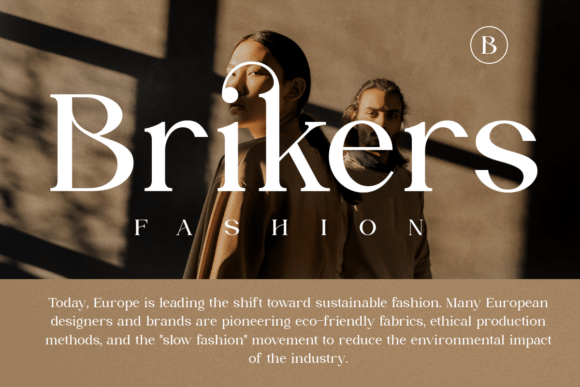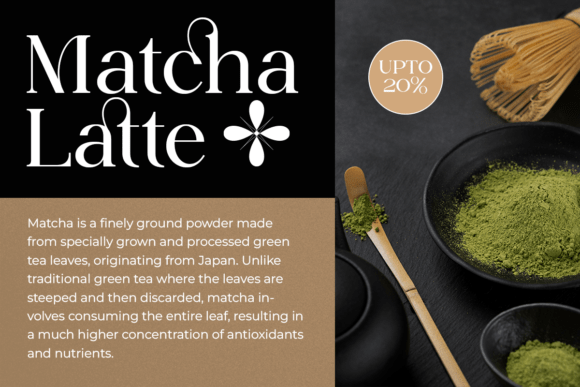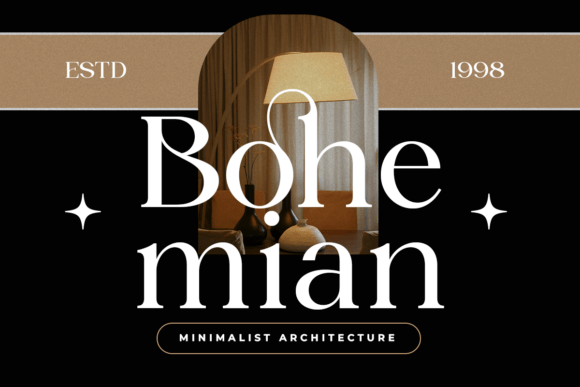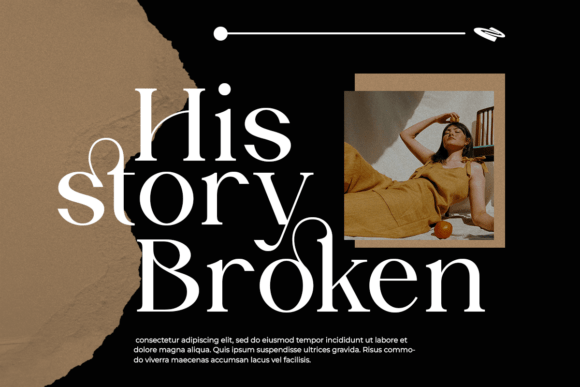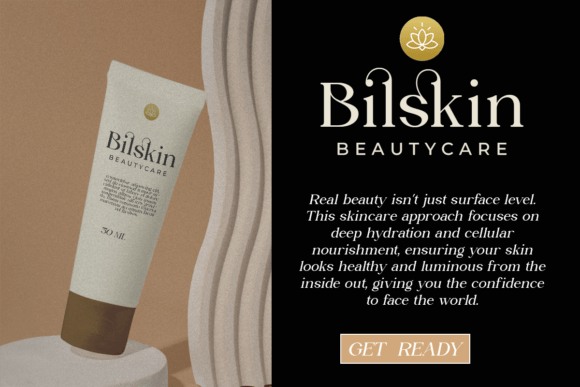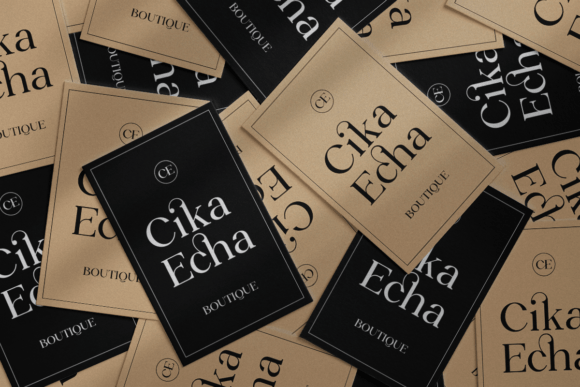
Introduction to Malgiva Font
Have you ever stumbled upon a design that makes you pause, and you can’t help but feel an instant connection to it? For designers, this moment is priceless – a moment that makes all the hard work worth it. For me, that moment came when I first laid eyes on the elegant Malgiva Font. Its refined ligature serif design and beautiful ligature connections immediately captured my attention, and I knew I had to learn more about this stunning typeface.
The Malgiva Font is more than just a design resource – it’s a game-changer for creative projects that require a touch of sophistication and luxury. With its smooth curves, balanced contrast, and high-quality design, this font elevates every project with refined charm and emotional appeal. Whether you’re working on a high-end branding project or creating a beautiful wedding invitation, the Malgiva Font is the perfect tool to help you achieve your design goals.
Key Features of Malgiva Font
- High-quality, free font ideal for creative projects requiring a unique touch.
- Unique, handcrafted design elements that set it apart from other free fonts.
Honest Review: Malgiva Font
I recently had the chance to work with the Malgiva Font for a creative project, and I was pleasantly surprised by the high quality and versatility of this design resource. One of the standout features of the Malgiva Font is its ability to be used with a transparent background, making it a great option for designers who want to create visually appealing and layered designs.
- ✨ High quality and clear typography
- ✨ Versatile and suitable for a variety of design projects
One of the limitations of the Malgiva Font is that it may not be as extensive as some other font libraries, with a more limited range of styles and weights.
- ⚠️ Limited range of styles and weights
- ⚠️ May not be suitable for projects that require a wide range of font options
Getting the Most Out of Malgiva Font
To get the most out of Malgiva Font, experiment with different font sizes, colors, and alignments to find the perfect combination for your design. You can also use Malgiva Font with other design elements, such as images and graphics, to create a cohesive and visually appealing design.